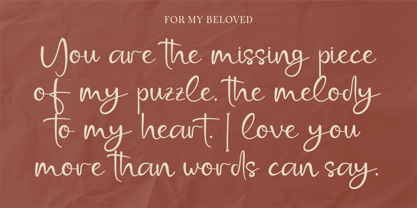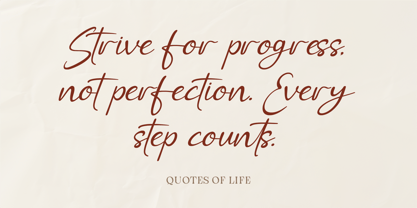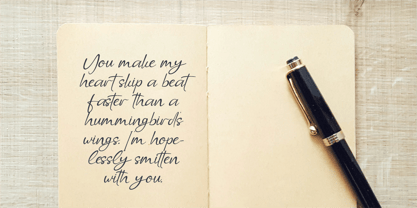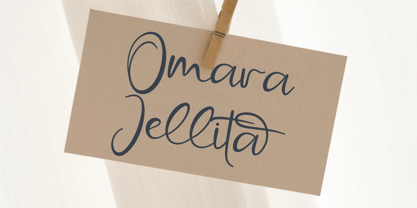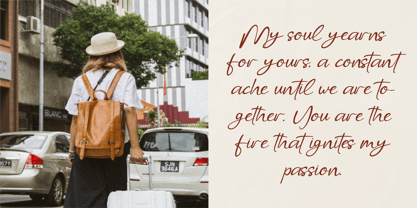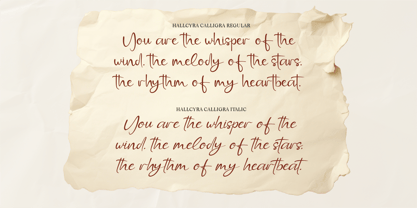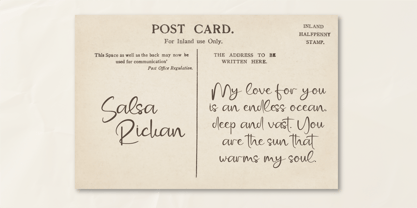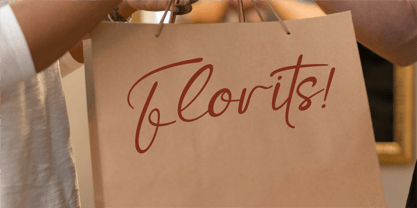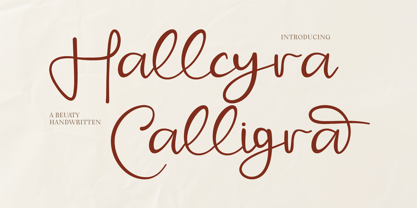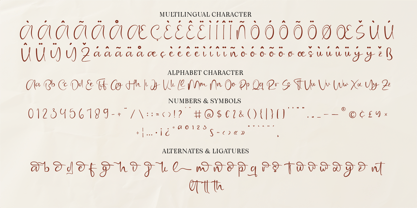
CF Hallcyra Calligra
by Indotype
The CF Hallcyra Calligra Font Family was designed by Gilang Mei Nugraha, Frederik Aristaputra and published by Indotype. CF Hallcyra Calligra contains 2 styles and family package options.
Hallyra Calligra is a beauty handwritten font that radiates timeless elegance and artistic sophistication. With its graceful curves, delicate strokes, and natural flow, this font captures the essence of refined handwriting, making it perfect for a wide range of projects. Whether you're designing wedding invitations, personal stationery, heartfelt greeting cards, or branding materials, Hallyra Calligra adds a touch of charm and individuality. Its versatility allows it to blend seamlessly into both classic and contemporary designs, offering a stylish solution for those who seek to elevate their creations with an air of grace and creativity.
- Standard Character A-Z, a-z, 0-9, Punctuation & symbols
- Regular & Italic Style
- Multilingual Support
- Include Alternates and Ligatures